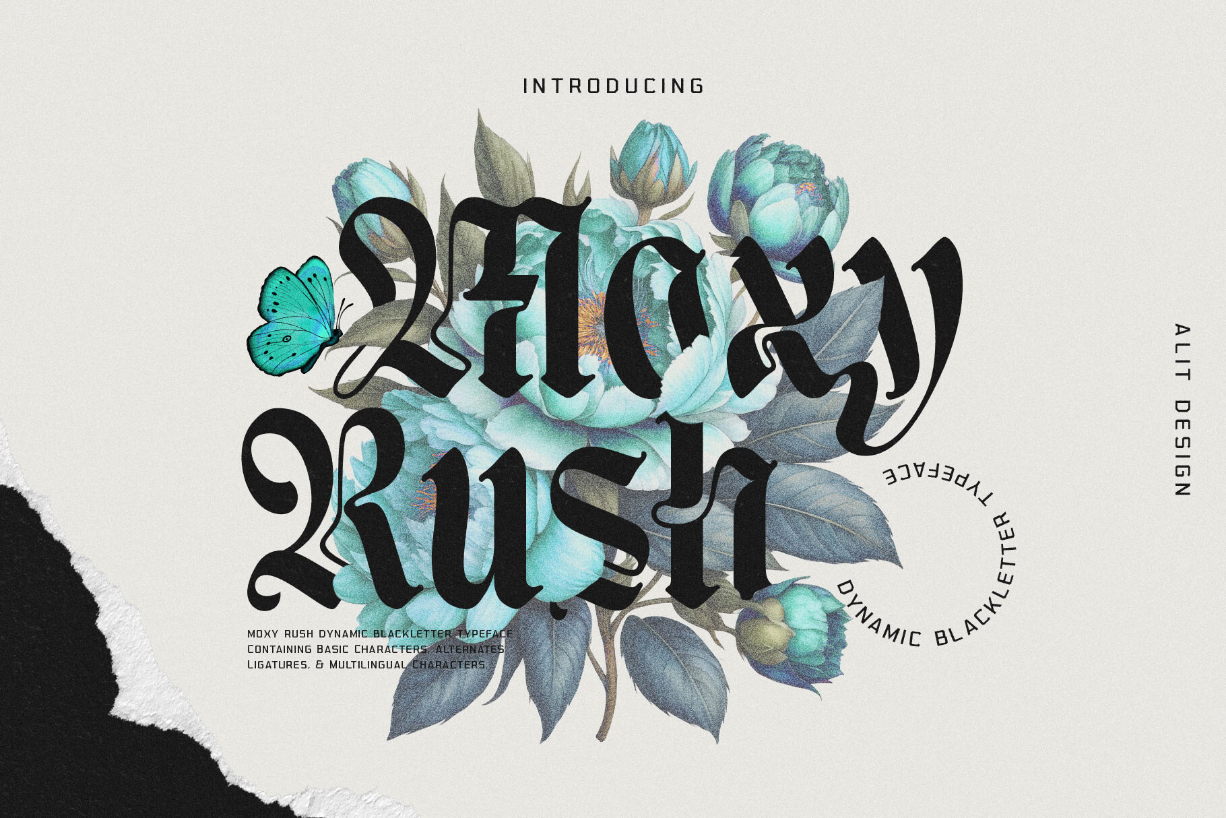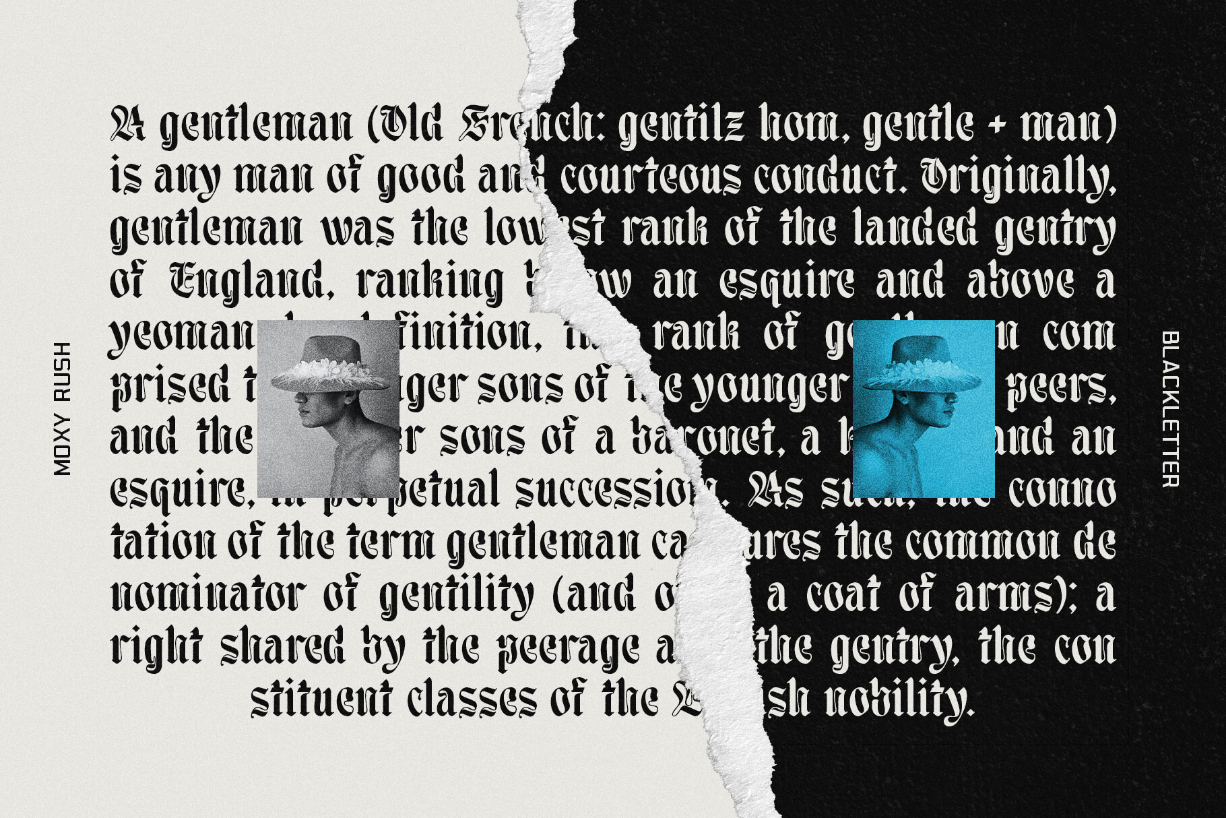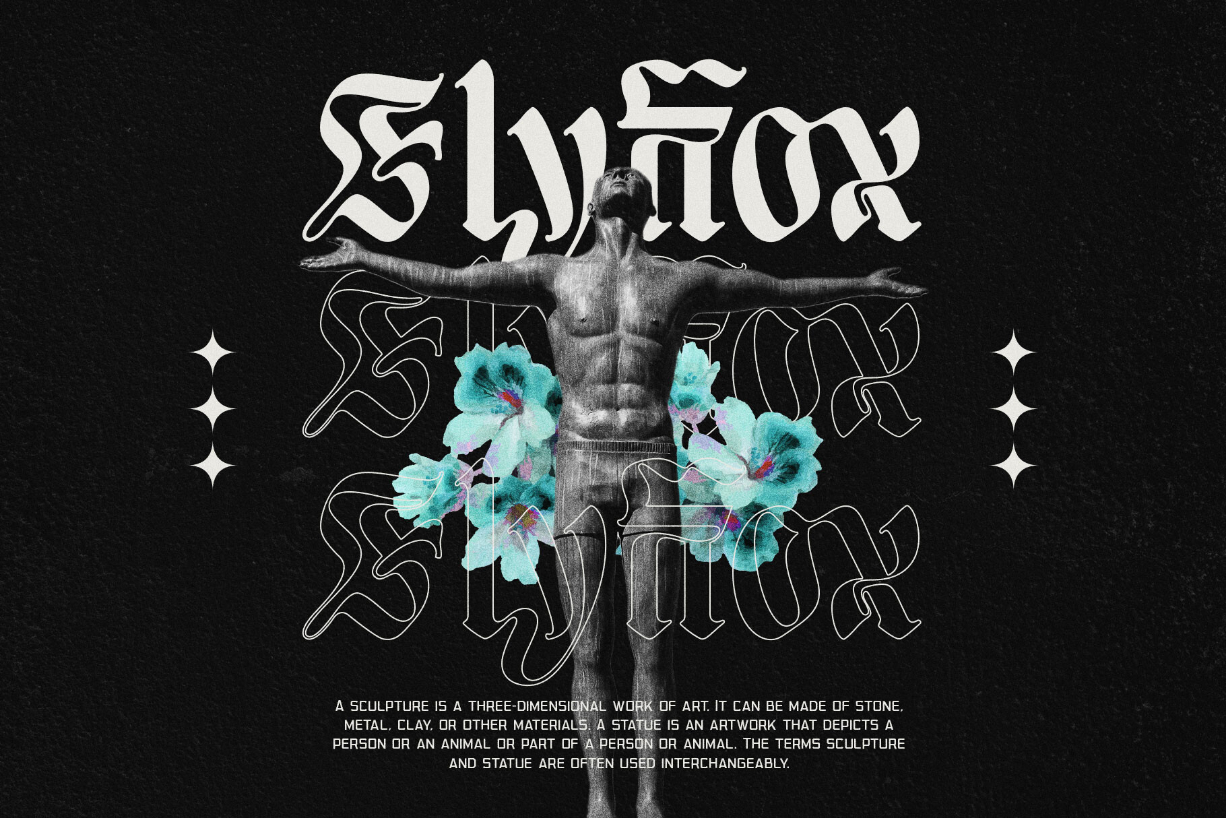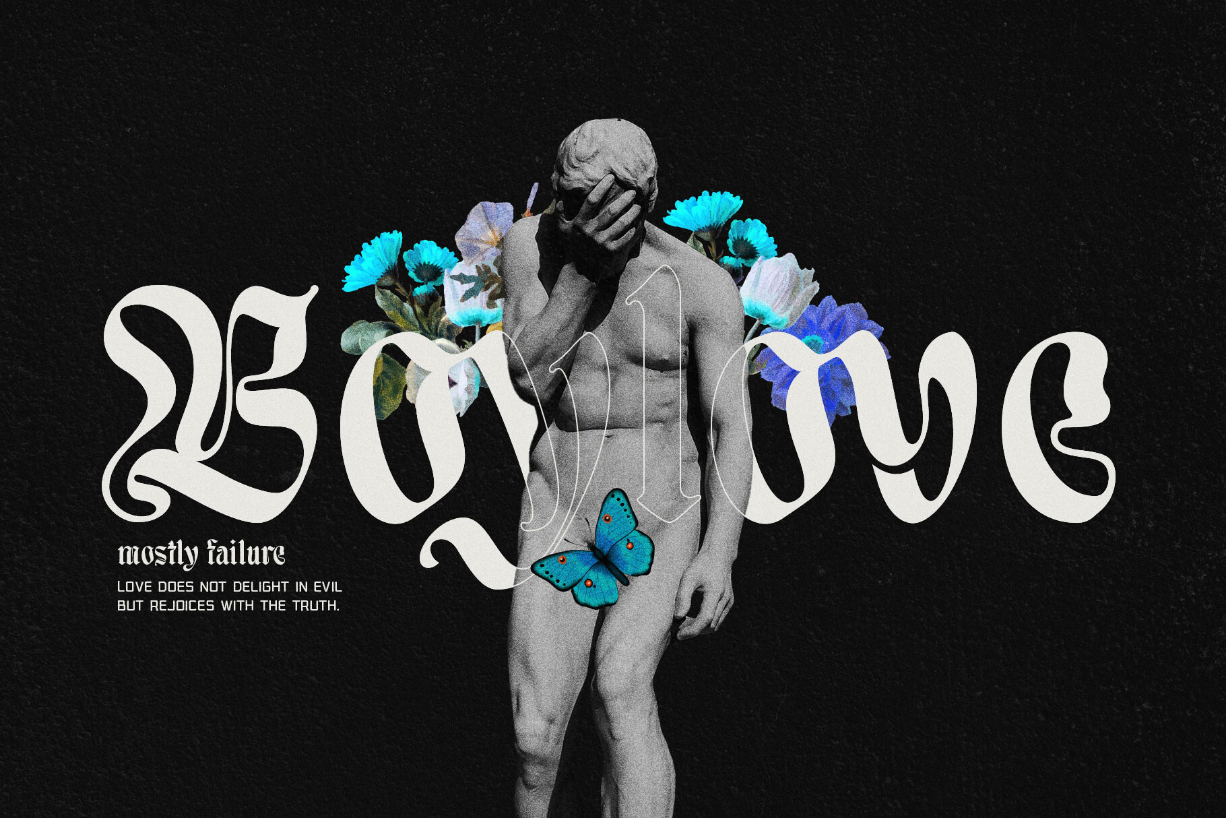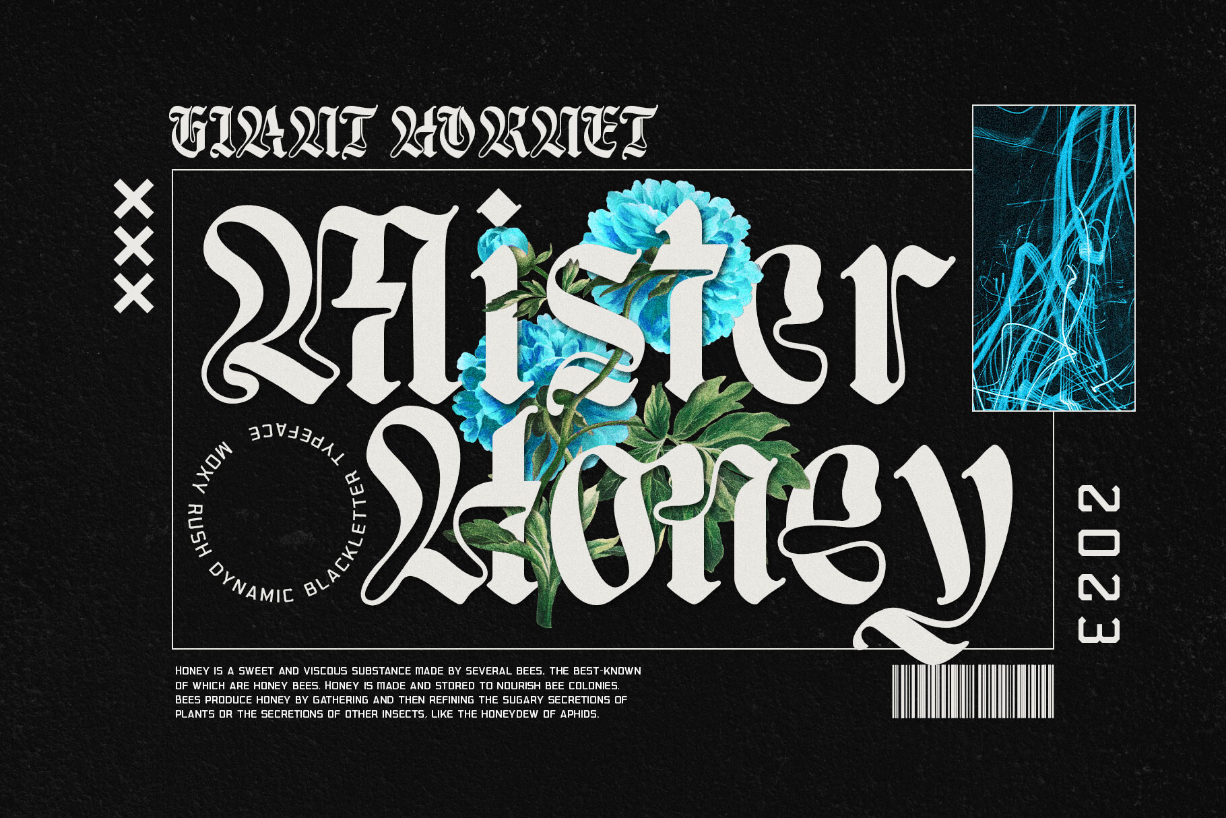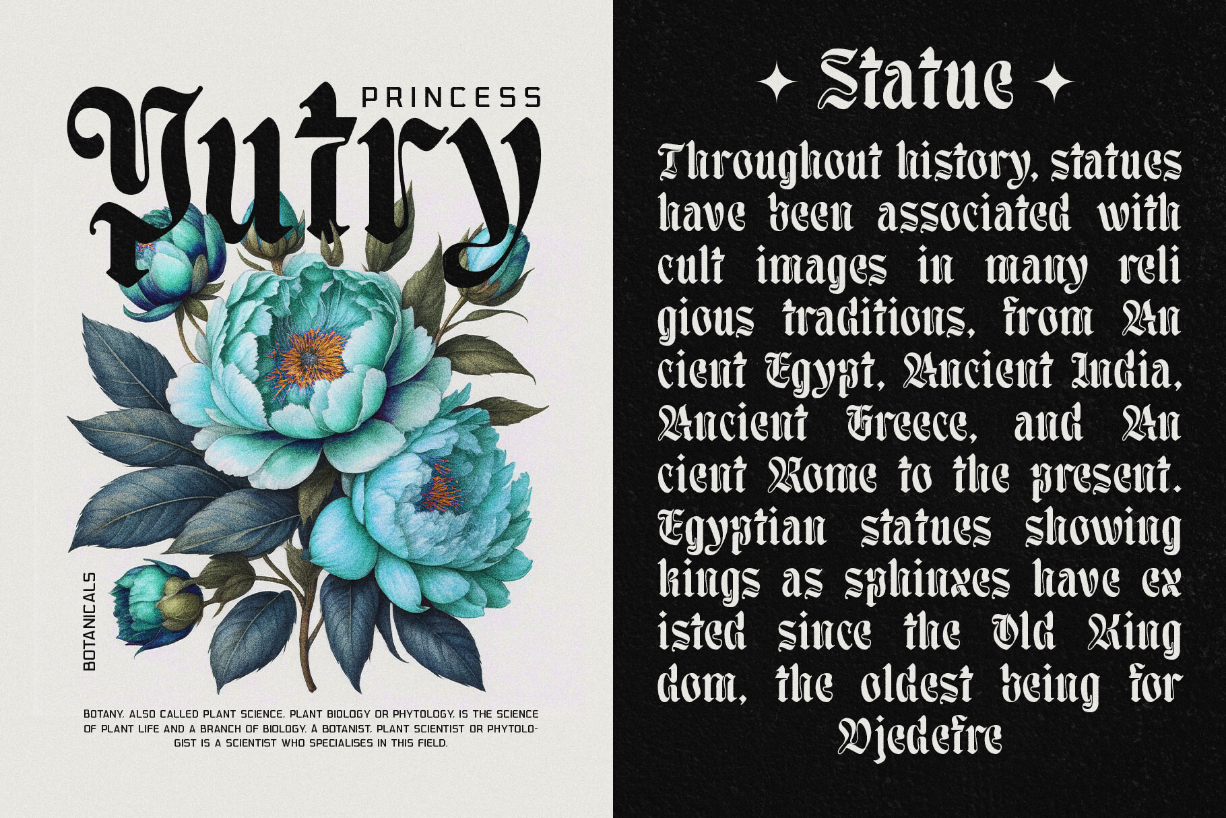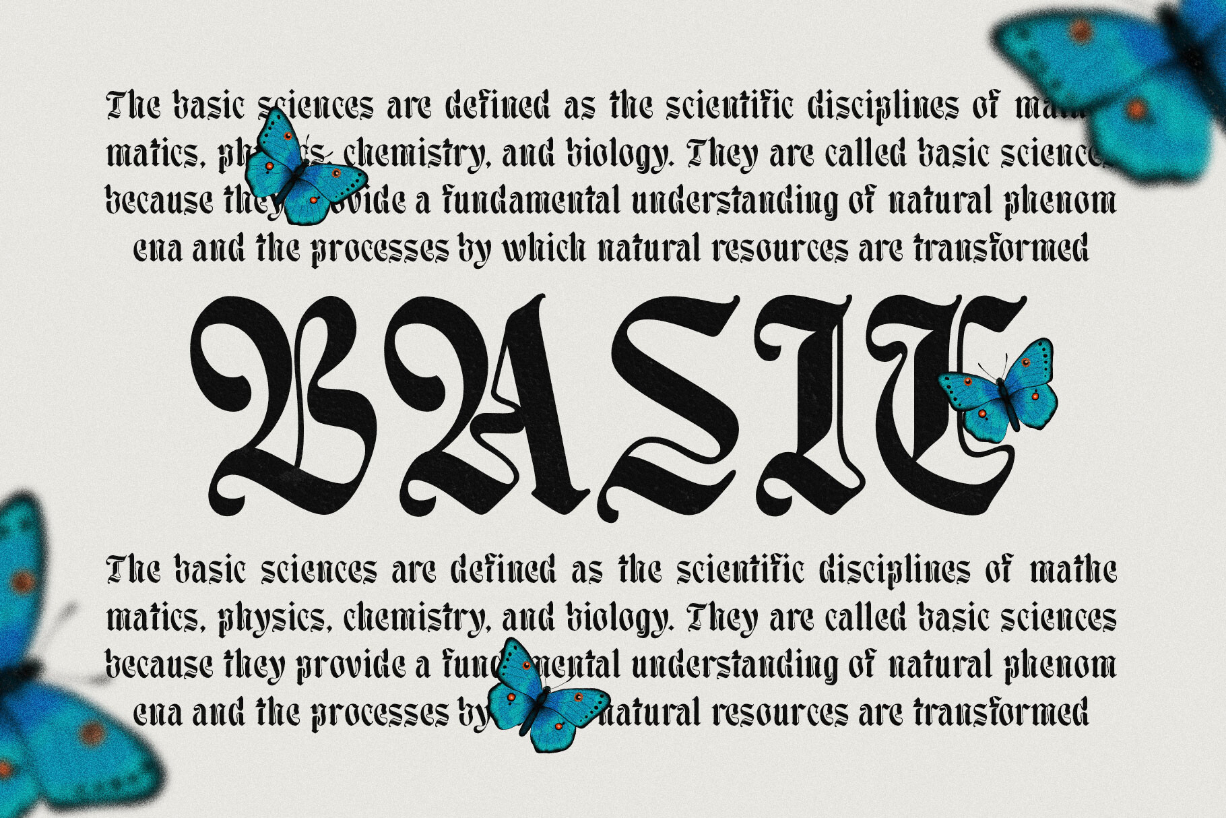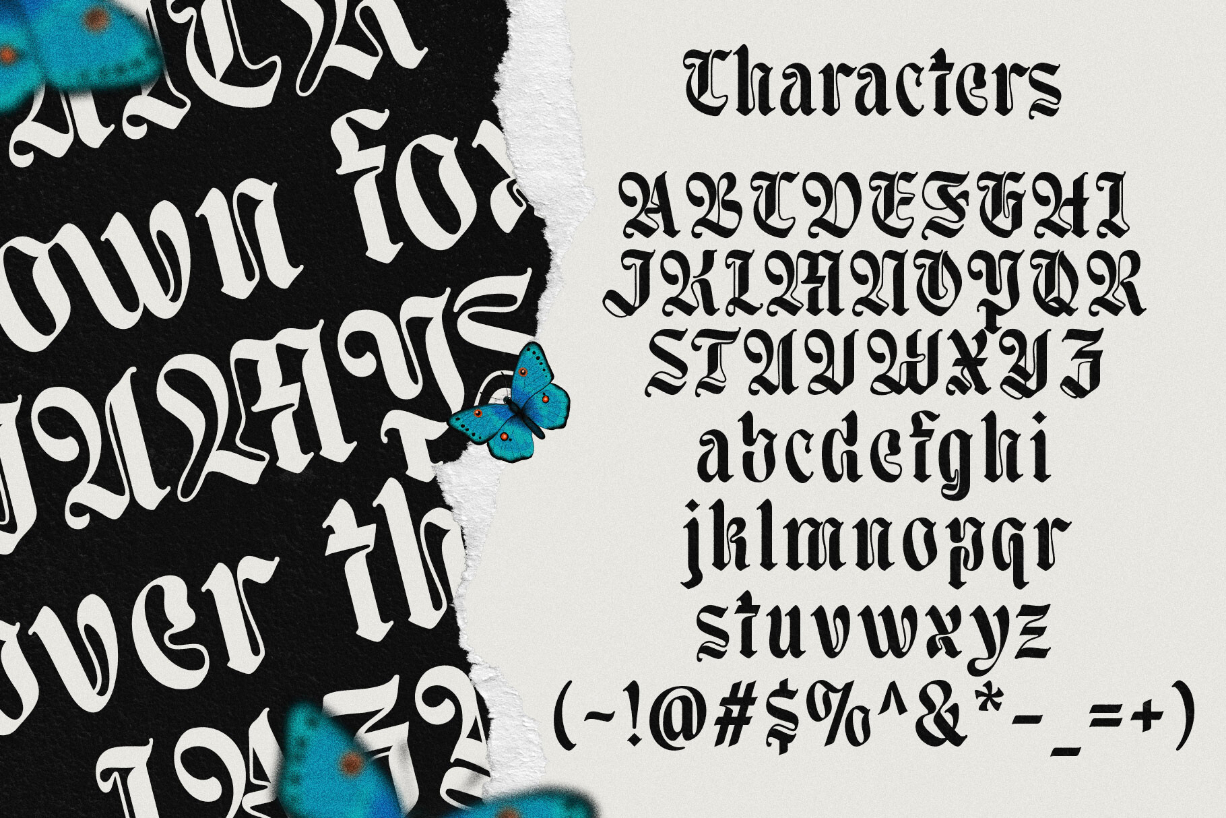
Moxy Rush Font
About Moxy Rush Font
Unleash the power of typography with “Moxy Rush,” a remarkable font that seamlessly blends the timeless essence of blackletter style with a captivating contemporary twist. This font is a true masterpiece, meticulously designed to elevate your designs, projects, and artworks to new heights of sophistication and creativity.